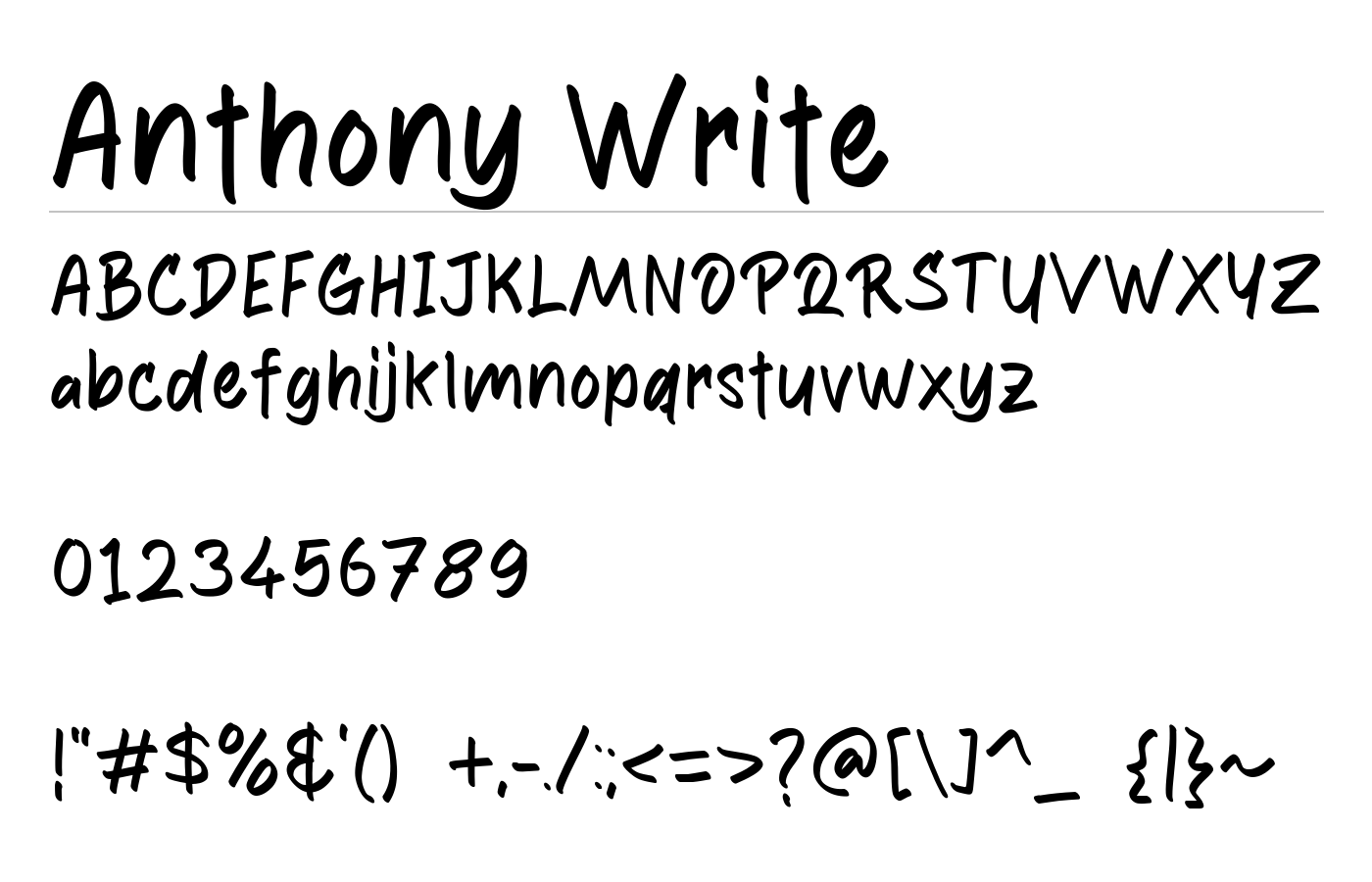
Anthony Write is a lively and informal handwritten sans serif font that mimics natural pen strokes with its friendly and slightly uneven letterforms. Its medium weight and open, airy spacing create a casual, approachable feel, making it ideal for personal projects, creative branding, and inviting headlines. This font conveys warmth and authenticity, perfect for adding a playful yet readable touch to designs.
Anthony Write Font
About Anthony Write Font